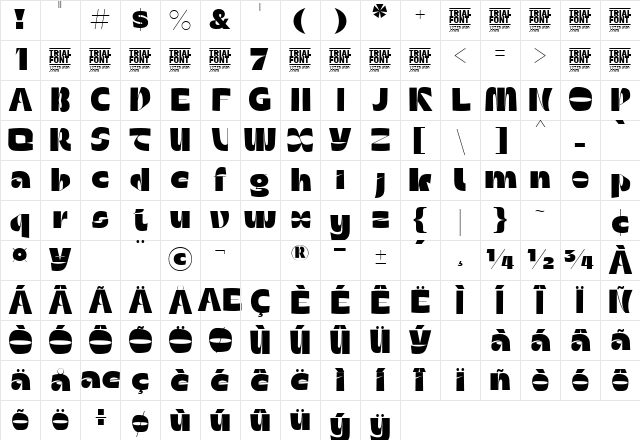
Complete LATEST ECLIPSE DEMO Regular glyph index. Displaying only characters natively supported by LATEST ECLIPSE DEMO Regular font.
LATEST ECLIPSE DEMO is a composed and adaptable typeface that performs quietly and consistently across a wide range of design contexts.
Pro Tip: Use LATEST ECLIPSE DEMO in both headline and body roles to test its range before committing to a single application.